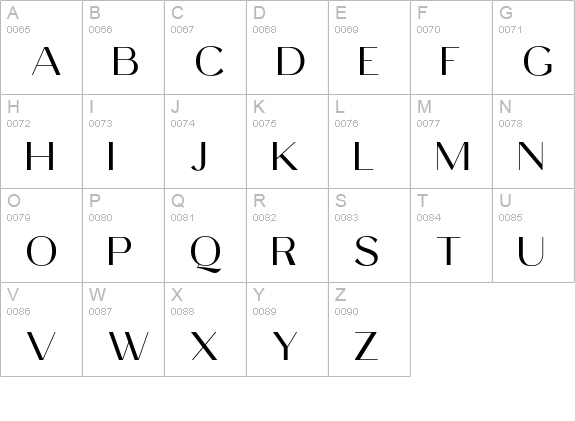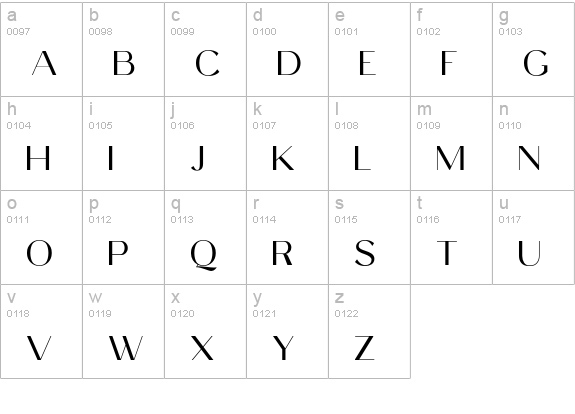
Introducing Celine Peach font, a delightful and charming typeface that exudes elegance and sophistication. With its delicate curves and graceful lines, Celine Peach is perfect for adding a touch of femininity to your designs. This versatile font is ideal for a wide range of projects, from wedding invitations to branding materials.
Give your projects a touch of sweetness and sophistication with Celine Peach font - the perfect choice for those looking to add a touch of elegance to their designs. Download it for free today and let your creativity shine!